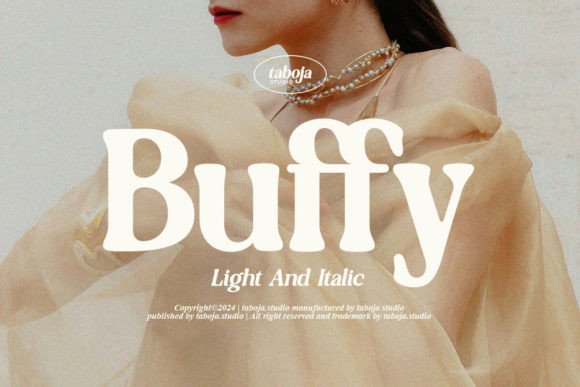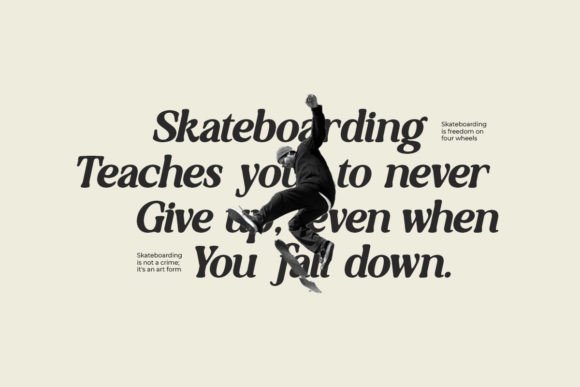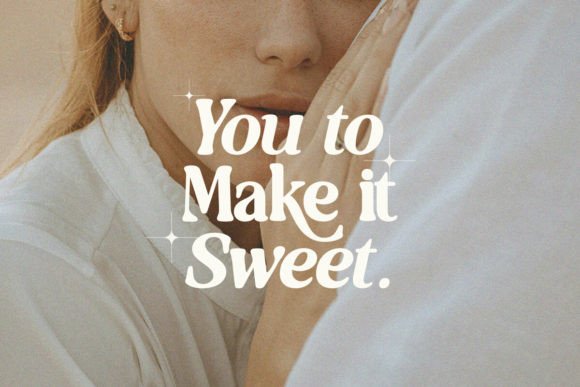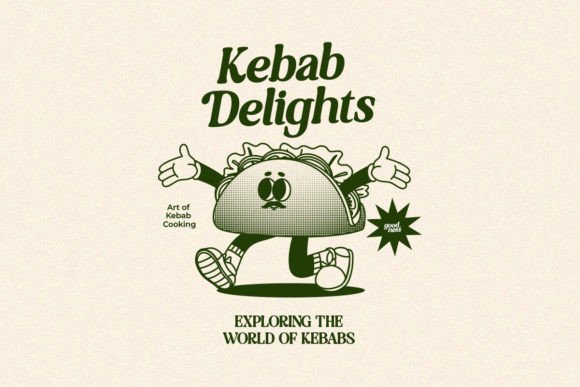
Buffy Font
About the Buffy Font
Experience the unique personality of Buffy Font, a font designed for impact. Say hello to Buffy Serif (Light & Italic), Elegant Serif Typeface with a unique and bold serif display style. This font combines classic serif elements with modern touches, creating visually striking and bold appearance. Buffy font would be perfect for making ideal graphic design projects, posters, and layouts that require unforgettable visual appeal.
Buffy Serif excels in headline treatments, short impactful statements, and branding applications where a bold, elegant presence is desired. It works particularly well for posters, logos, and short-form marketing materials. Avoid using Buffy for body text or lengthy paragraphs; its strong serifs and bold design would prove visually fatiguing in extended use.
Its core personality is sophisticated yet assertive. Think high-end fashion, luxury goods, or projects requiring a confident, upscale aesthetic. Pairing Buffy with a clean sans-serif like Montserrat or Open Sans for body text provides excellent contrast and readability. For a more playful feel, consider pairing it with a script font like Great Vibes, but use sparingly to avoid overwhelming the design.
A geometric sans-serif such as Futura would create a more modern, minimalist pairing, while a warmer, transitional serif like Garamond could offer a more classical balance. Ultimately, the best pairing will depend on the specific design project and desired mood.
Buffy Font Example